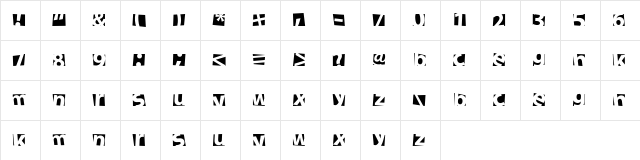
new facebook Regular
| Designer | prask |
new facebook is a composed and adaptable typeface that performs quietly and consistently across a wide range of design contexts.
Pro Tip: Pair new facebook with a font of contrasting weight or personality to build a more expressive typographic hierarchy.